A Brief History of Typography#
Writing gives the impression of things. Conversely, things can give the impression of writing.
Typography is the form and structure into which words are manifested into our world. It has a long and storied history, and it’s our job to both understand this history and, from it, how to apply type effectively.
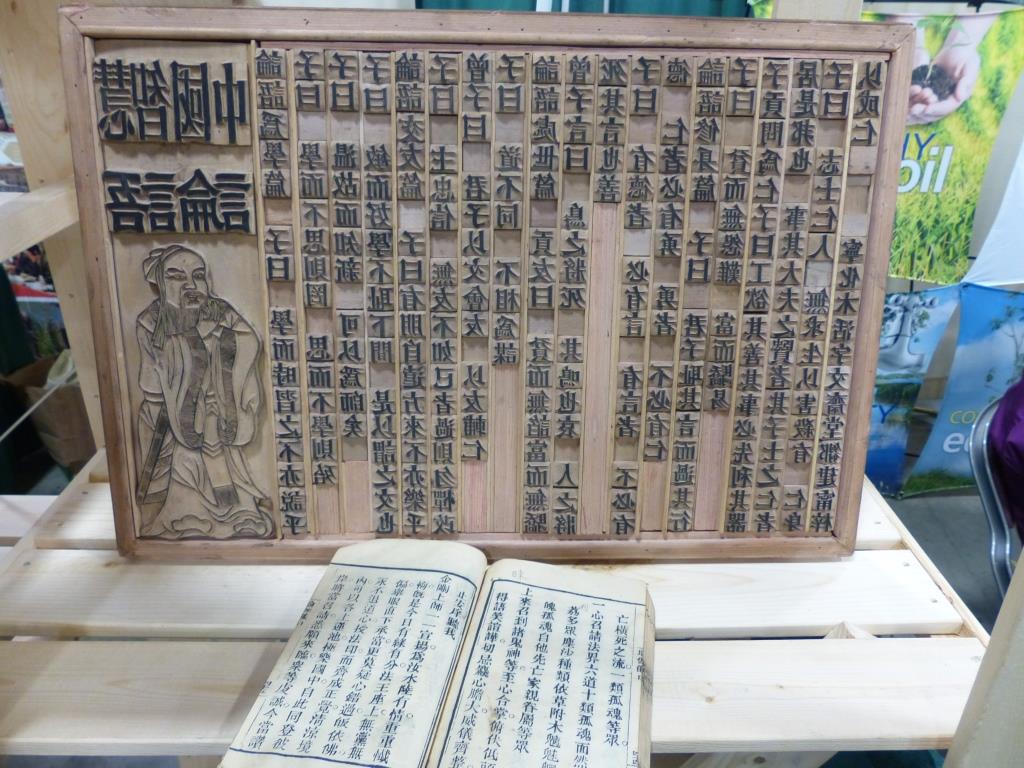
Early example of Chinese movable type. ↗
While Johannes Gutenberg is widely associated with inventing the printing press and movable typography in 1450, earlier forms had been invented around 1040 in Asia, by Chinese polymath Bi Sheng.
We’ll begin in the early 1500s with Albrecht Dürer, a seminal figure of the German Renaissance. Dürer made the first inroads towards a methodology of type design, the beginnings of formal typography.
Dürer examined Roman letterforms and attempted to create a rational system for recreating glyphs, specifically drawing attention to the form in which words appear. The way words appeared then, as now, was a byproduct of the medium in which they were written.
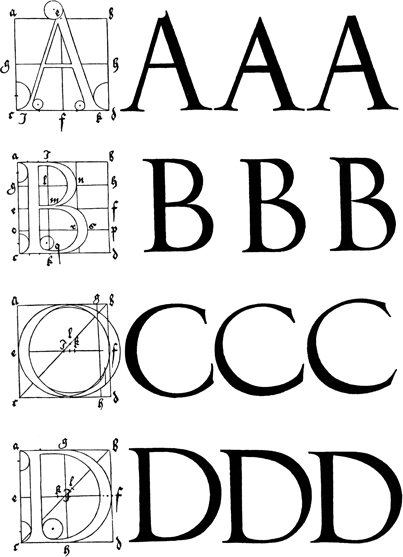
Image from Dürer’s Directions for the Construction of the Text. ↗
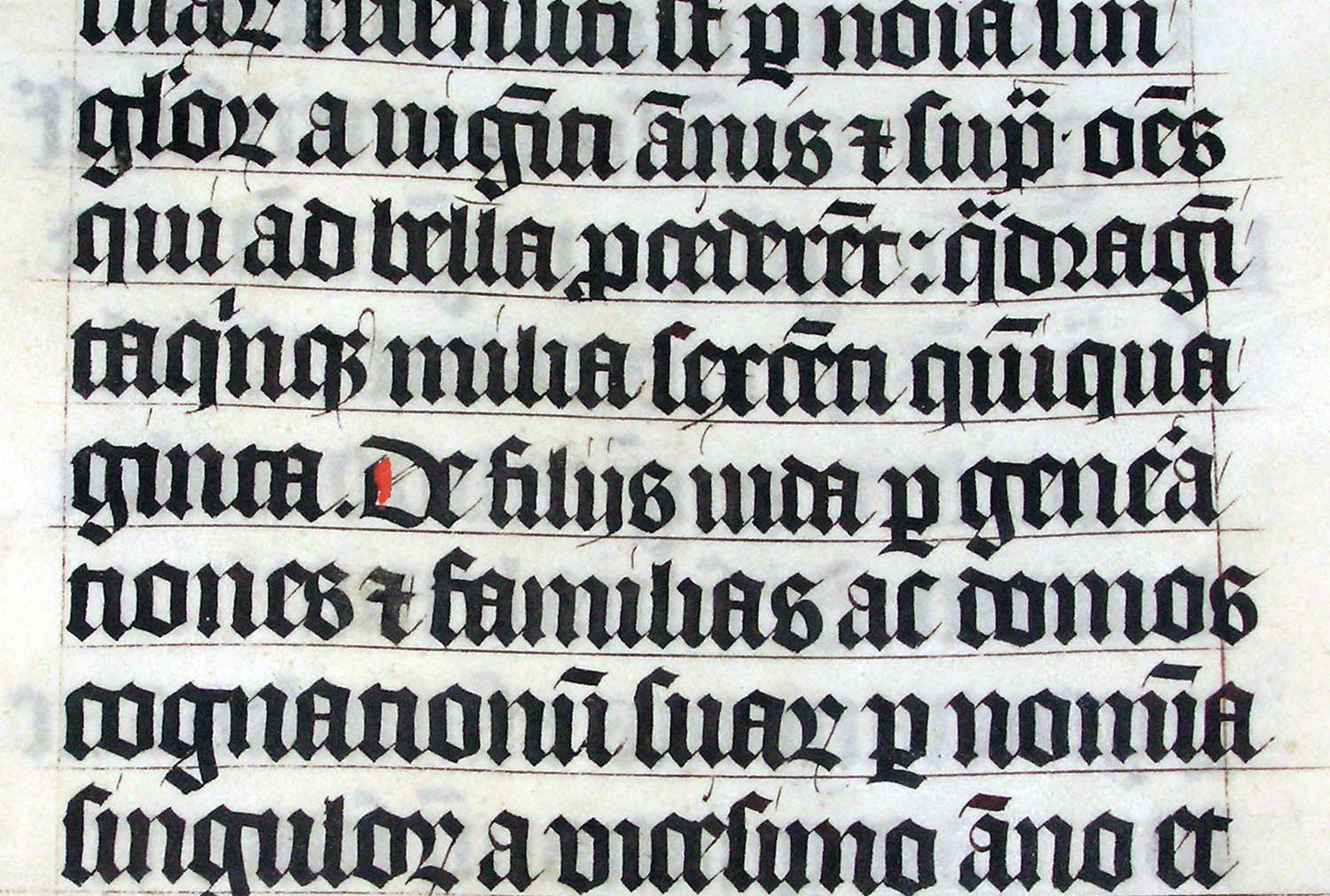
An early example of blackletter script—a style that reflected the thick nibbed pens that were in use at the time. ↗
The First “Typefaces”#
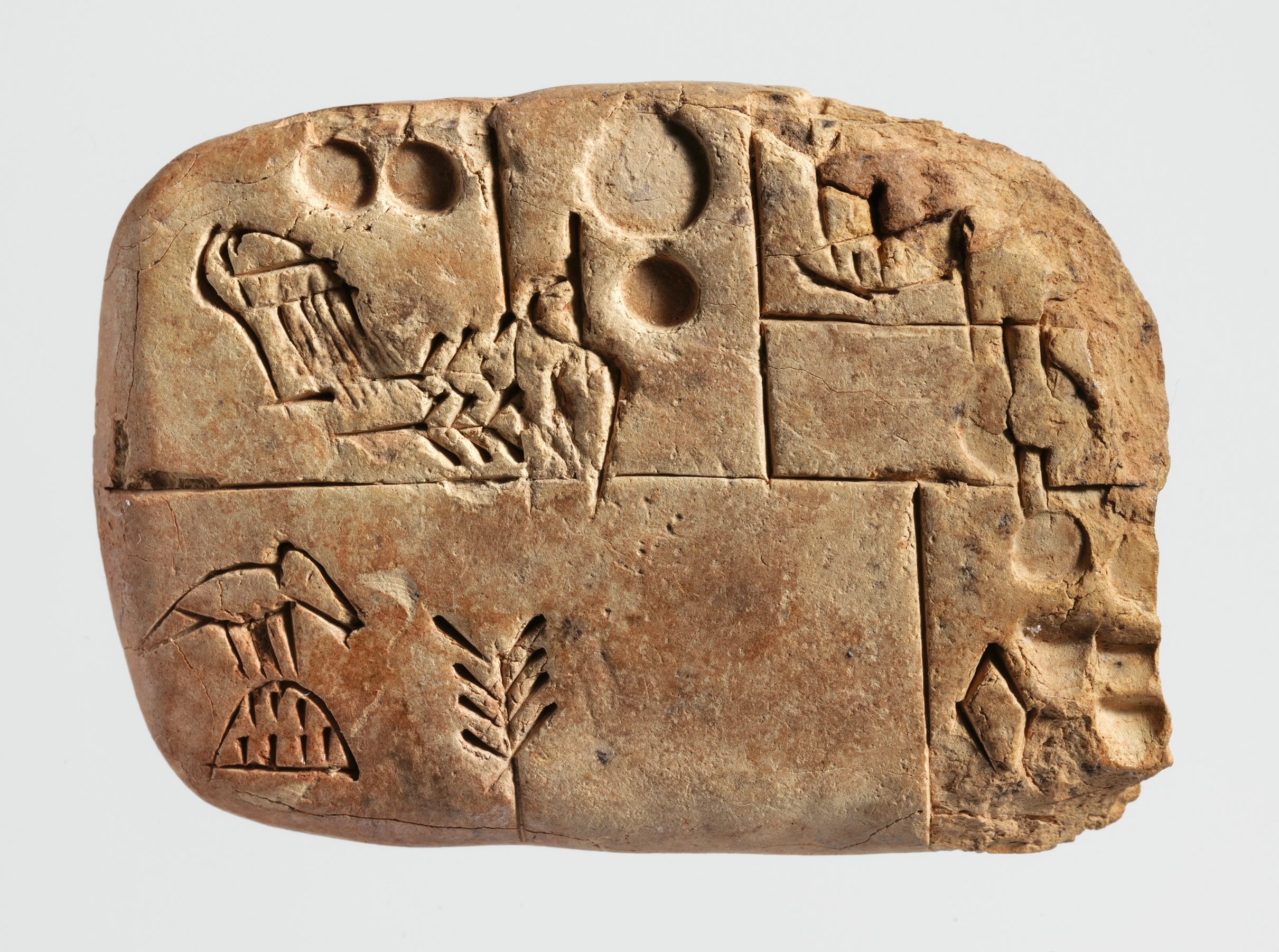
Cuneiform tablet: administrative account concerning the distribution of barley and emmer. ↗
The first “typefaces” weren’t typefaces at all. Early writing was used primarily as a means for recording and storing information. Care was generally not given to the presentation of forms on physical medium, but to the information as such.
Often, words and forms were expressed into a particular physical medium with whatever tools were available. These tools shaped the ways words were shown and presented
Metal Type#
The first typefaces created with movable type attempted to emulate handwritten scripts. A typeface designer would create a punch which would function as the source from which a metal form would be created.
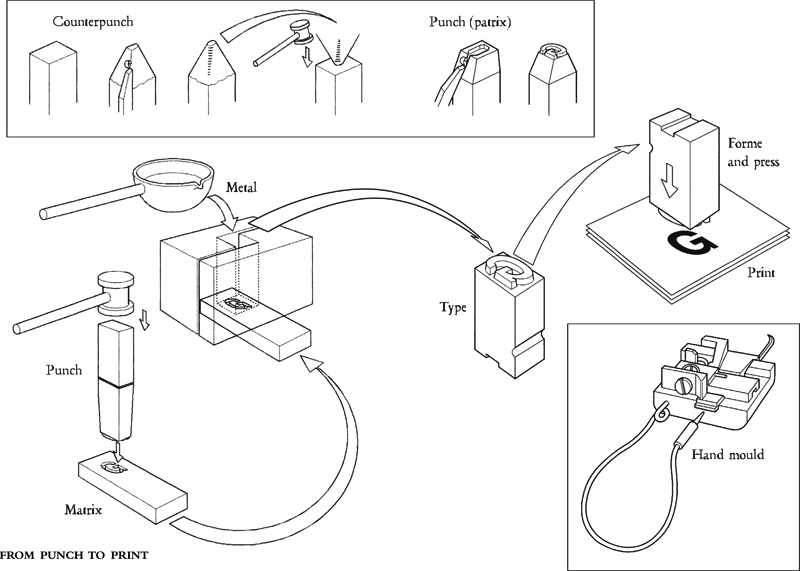
Creating movable type from punch cut forms. ↗
Many of the terms that were created to describe physical attributes of metal type (leading, point size, shoulder) continue through to our digital world:
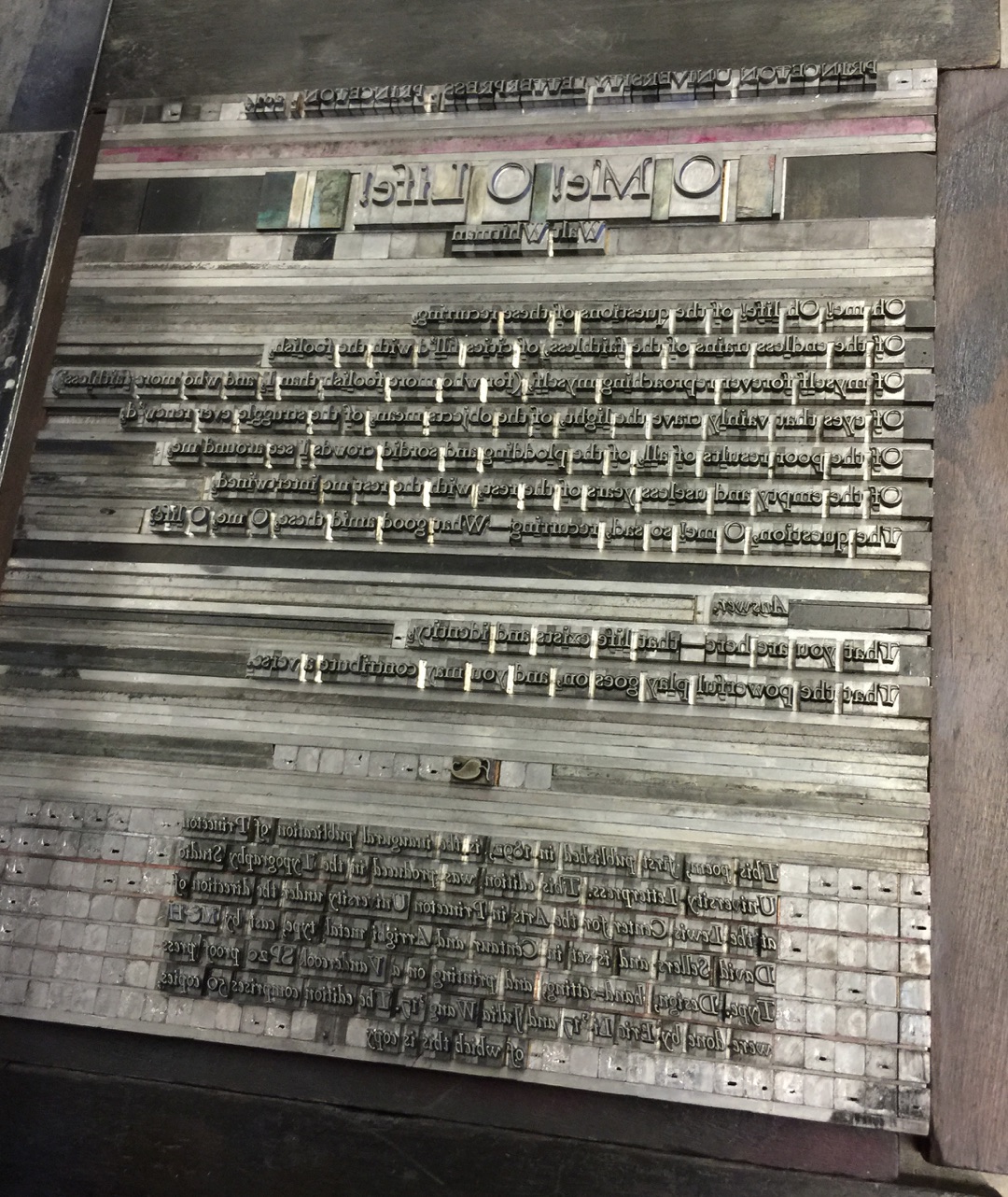
A “lockup” of metal type, describing the frame holding forms together. We still use this phrase to refer to design layouts!
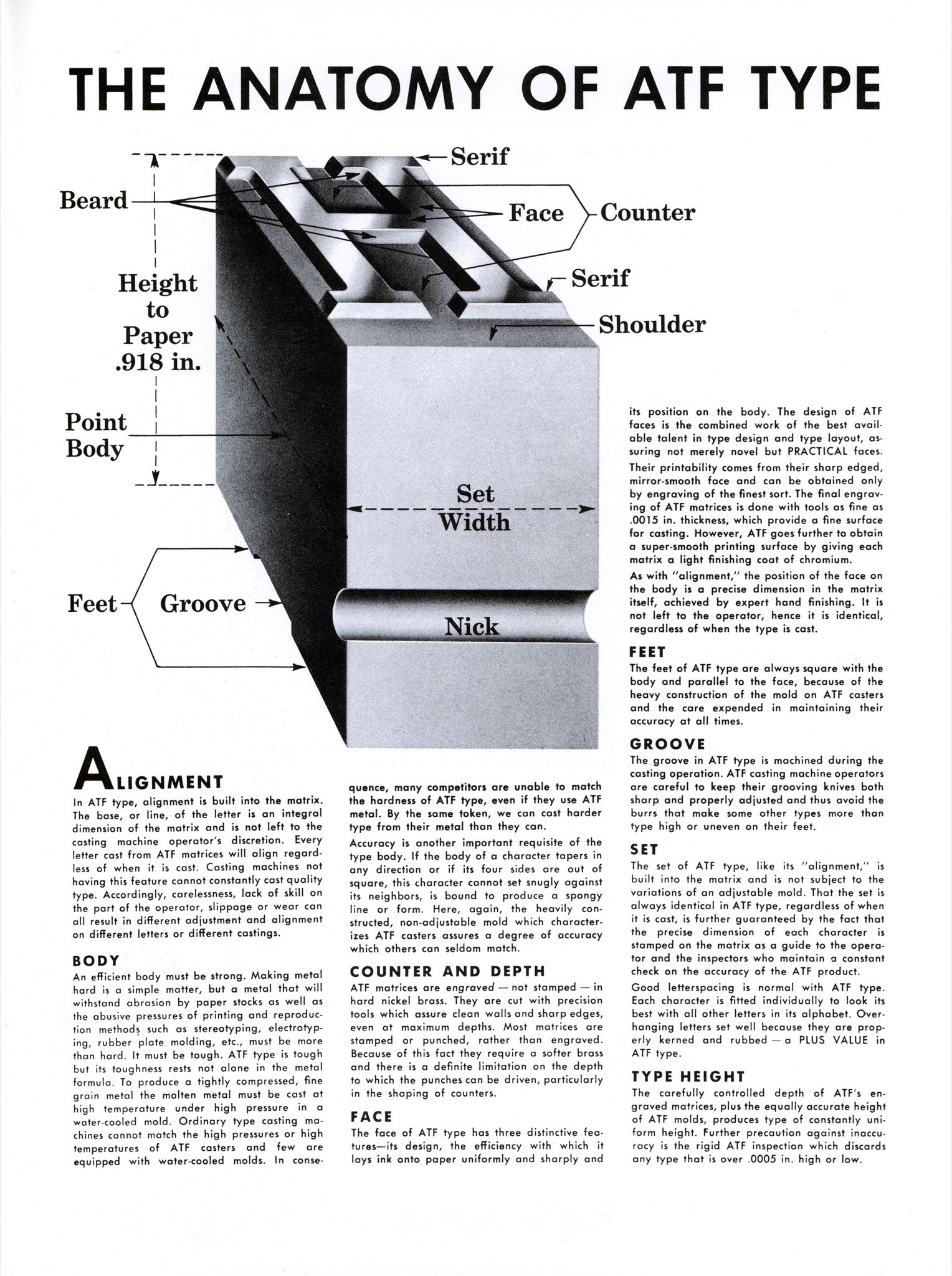
Anatomy of metal type. ↗
Type was stored in drawers where the lower case held the uncapitalized forms, and the upper case held the capital forms. Sound familiar?
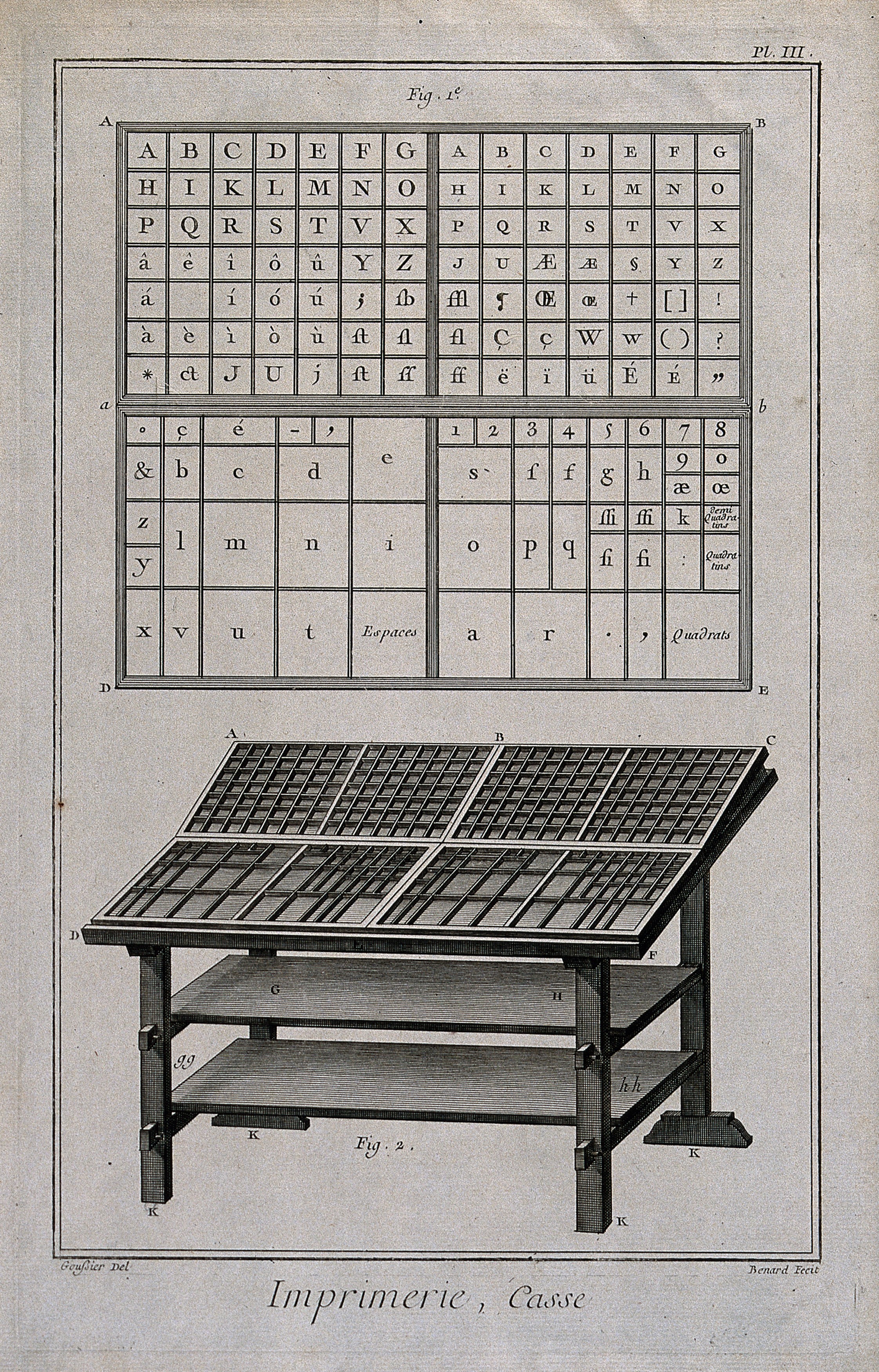
Conventions and standards carry on through history! ↗
Technological Evolution#
Farewell Etaoin Shrdlu, a documentary made at the end of the metal type era at The New York Times, in 1978. ↗
Over time, as technologies evolved, type and typesetting transitioned as well. We moved from hand-setting movable type in composing sticks to Linotype typesetting. This allowed for machines to create an entire
With the advent of the photocopier, we quickly moved from metal type to phototypesetting—which worked by projecting text silhouettes onto a light-sensitive medium. This was significantly less constrained than metal type—allowing novel typographic compositions and dramatically increasing speed.
In fact, some of the first computer programs for digital typesetting, such as troff
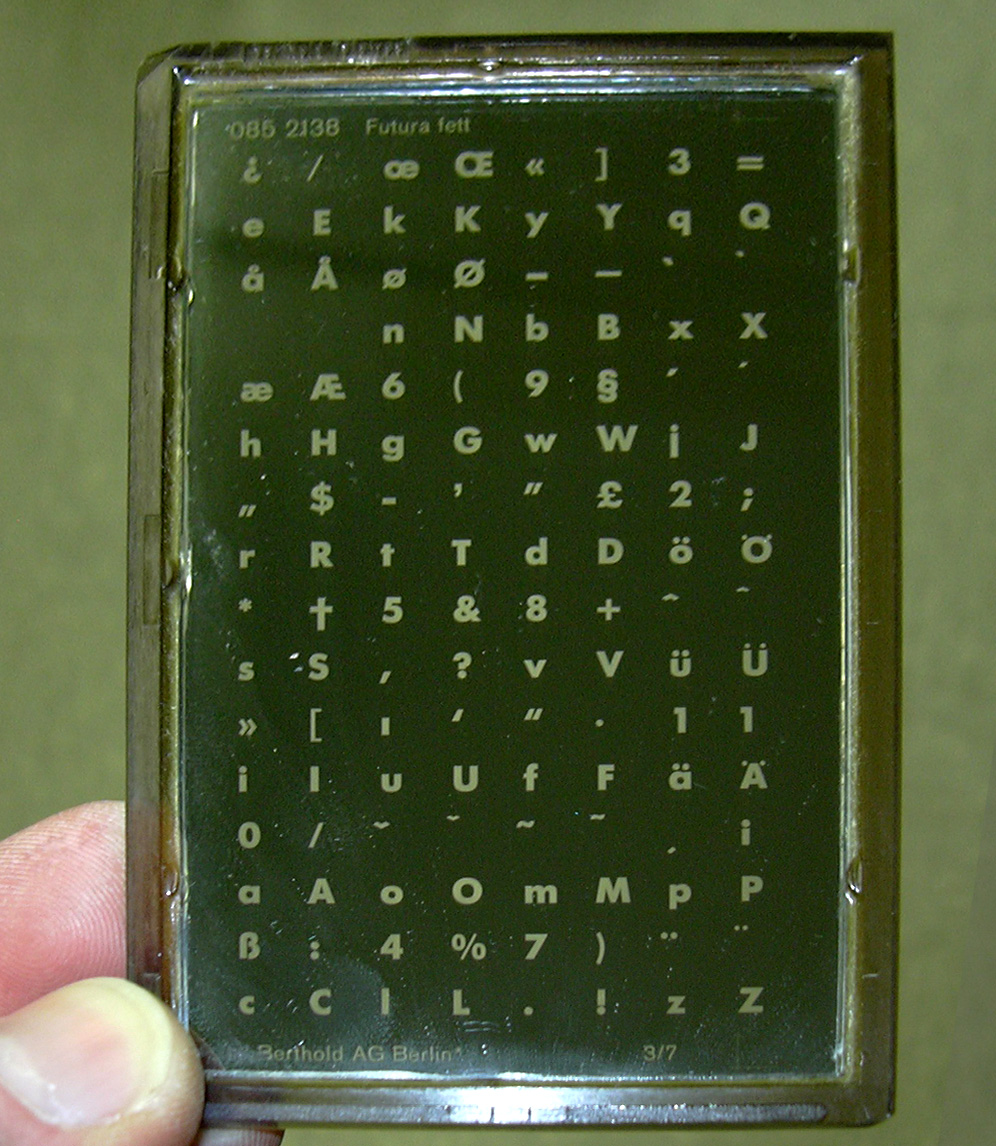
A master plate for Futura phototypesetting. ↗
A Transition to Digital#
By the early 1980s, as the internet was being formed and the web had yet to exist, the advent of computers with screens and visual interfaces made the final typesetting transition: from physical to digital.
Most significantly, the Apple Macintosh and Lisa were significant milestones in providing the first visual document editing experience on a computer. The term What You See Is What You Get (WYSIWYG) begins with this era of consumer computing.
Some typefaces that came with the original Macintosh. Look familiar? ↗
Susan explains how to use the Macintosh interface, in 1984. ↗
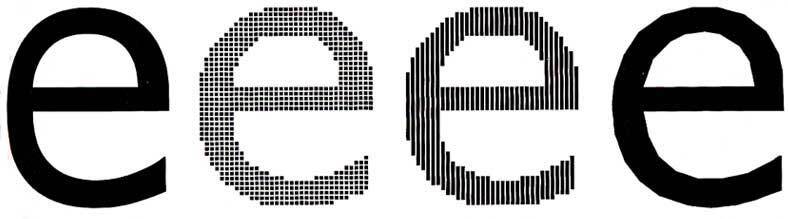
Physical type had to be converted to digital formats in order to be presented on a screen. We started with pixel and bitmap encodings of typefaces, before switching to vector-based representations. ↗
With the transition to digital screens, the representation of fonts also evolved over time. Today, almost all digital fonts are presented as vectors—the basic mathematical instructions for recreating the letterforms.
Hinting typefaces to sit on a pixel grid. ↗
However, while vector files are infinitely scalable, the medium on which they are shown (screens) are not. As with any analog to digital process, there is some loss of information as a computer samples the original shape of a glyph and then maps it to a pixel grid.
This is how we get artifacts such as aliasing, which happens when a line or curve doesn’t land perfectly on the pixel grid. The operating system and display use shades of gray to trick our eyes into seeing a smooth curve.